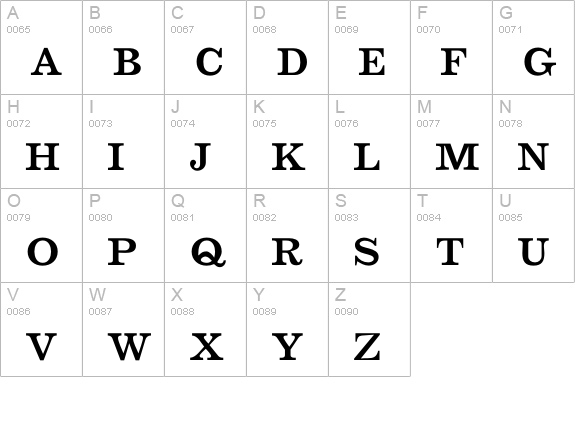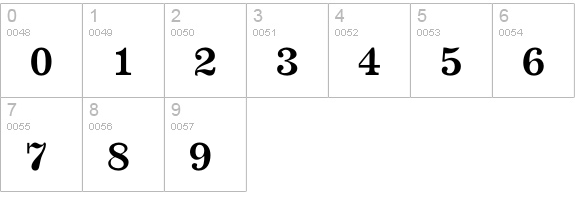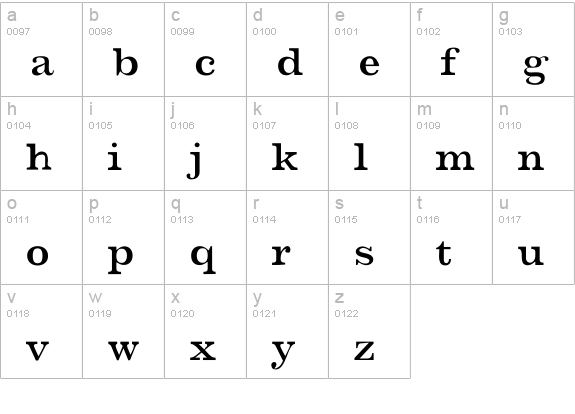
Barbera-Regular Font Details
Barbera-Regular is the standard, neutral variant in the Barbera typeface family \xE2\x80\x94 well suited to general body text, paragraphs, and standard typographic work.
Barbera-Regular is a versatile and elegant font that exudes sophistication and modernity. With its clean lines and balanced proportions, this typeface is perfect for a wide range of design projects, from branding to editorial design. The classic yet contemporary feel of Barbera-Regular makes it a versatile choice for both print and digital applications. What sets Barbera-Regular apart is not only its timeless design but also its accessibility - it is available for free download at FontsMarket.com. This means that designers and creatives can easily incorporate this stylish font into their projects without any cost involved. Whether you're working on a logo, poster, or website, Barbera-Regular is sure to add a touch of class and professionalism to your design. Download it today and elevate your work with this exceptional typeface.